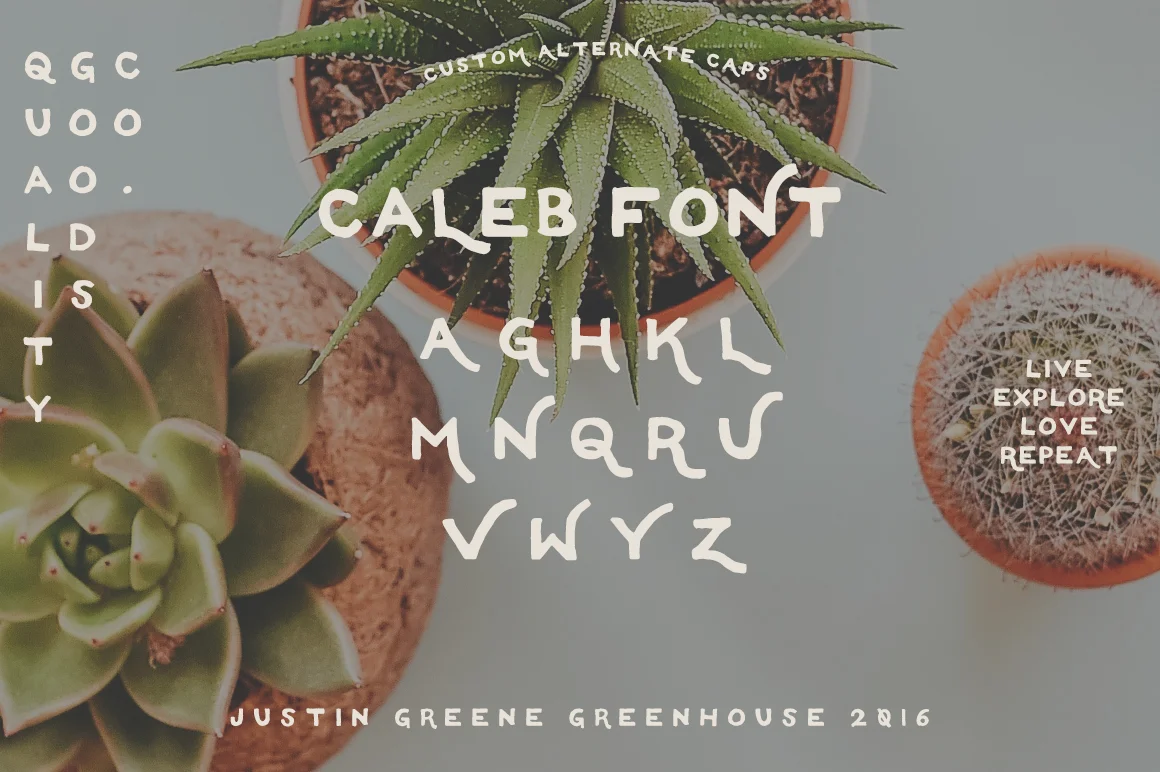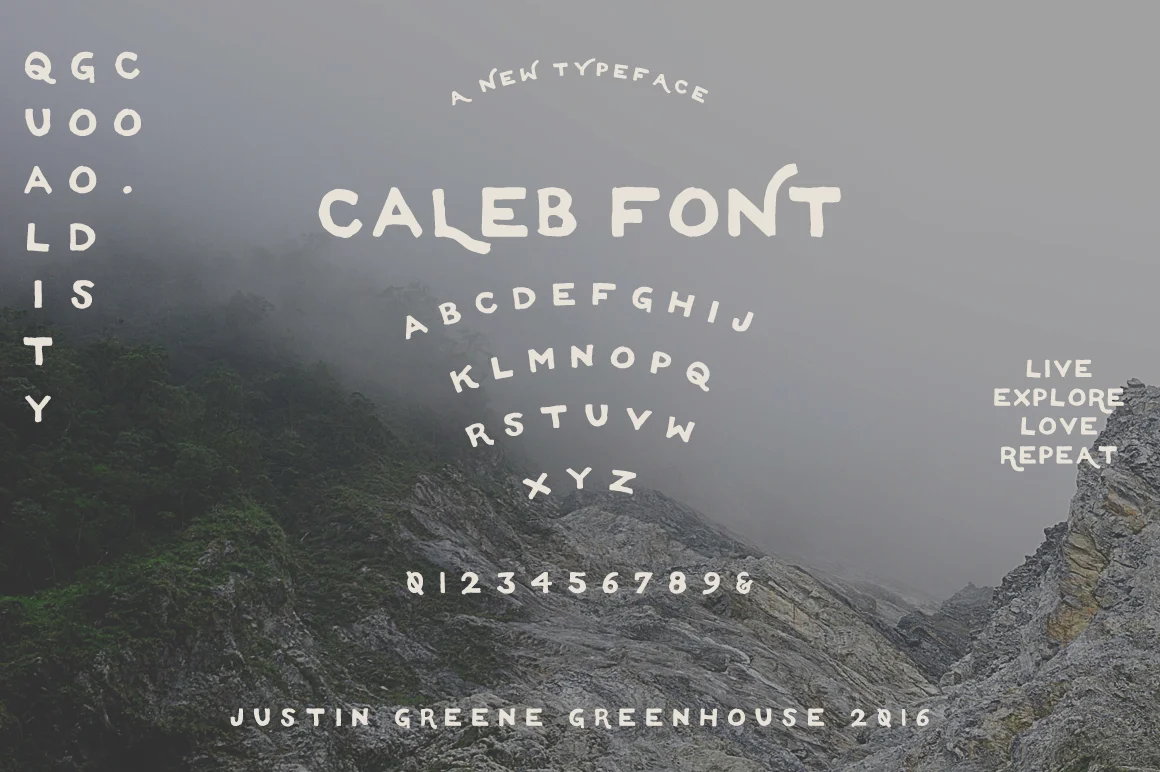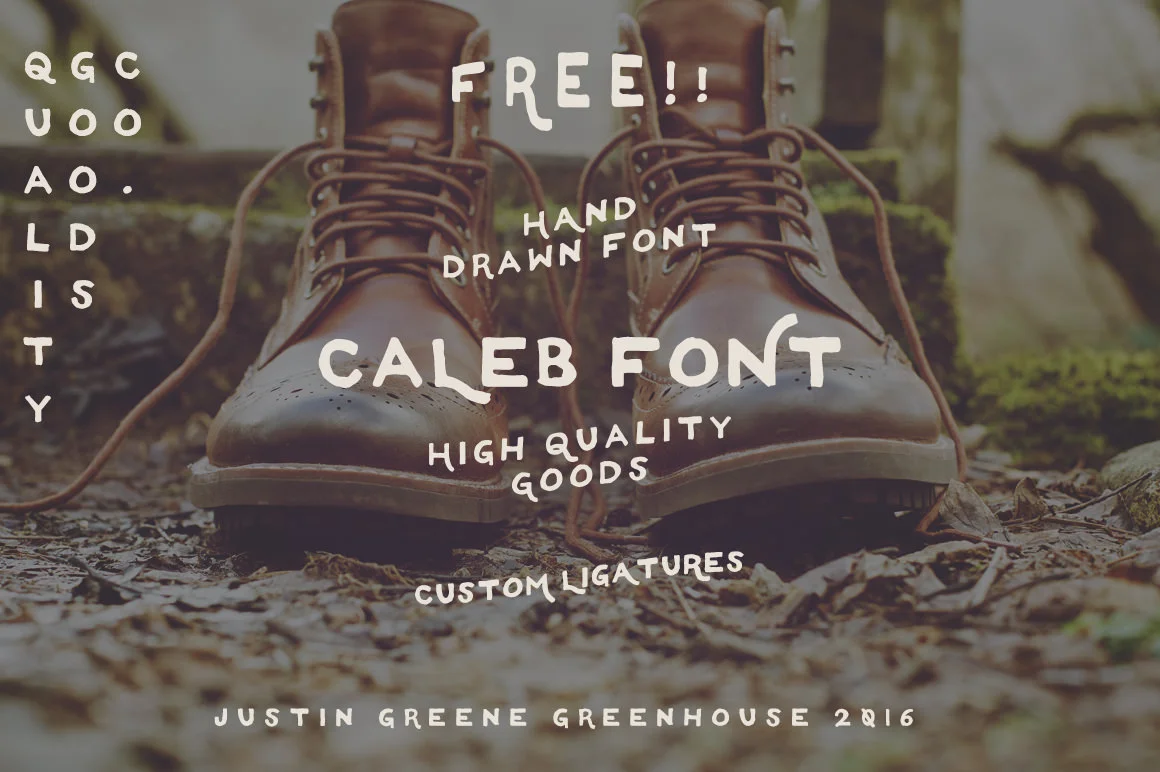
CALEB
Caleb is a hand drawn typeface from Greenhouse Supply Co. by Justin Greene. Great for Logos, Stationary, Posters, Apparel, literally everything design related. It includes alternate ligatures for several of the uppercase characters, just to achieve that vintage signage & hand drawn inspired feel.